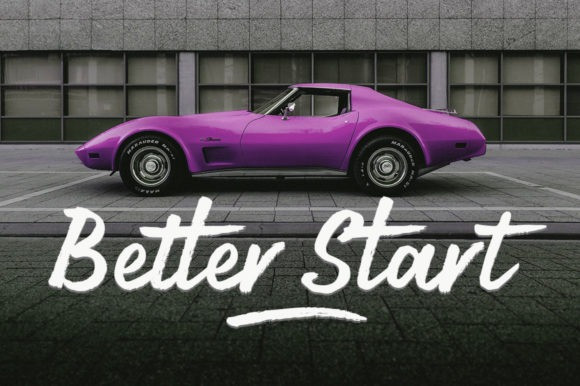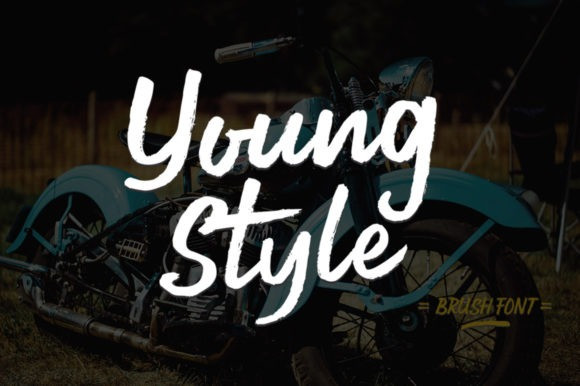
Young Style Brush Font
Young Style Brush Font, is a playful, brushed handwritten font. No matter the topic, this font will be an incredibly asset to your fonts’ library, as it has the potential to elevate any creation.